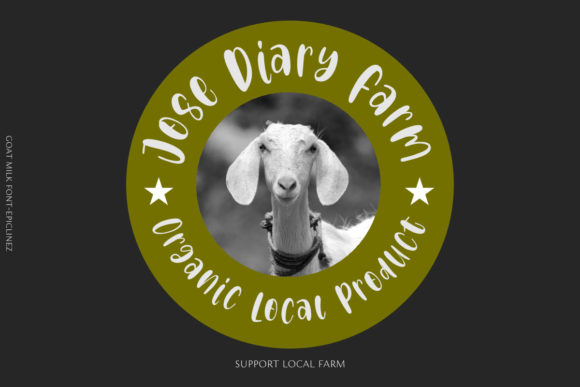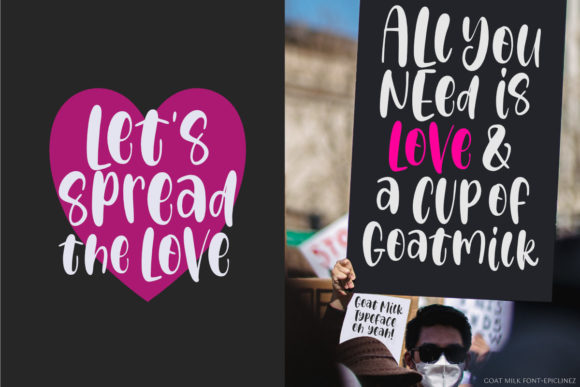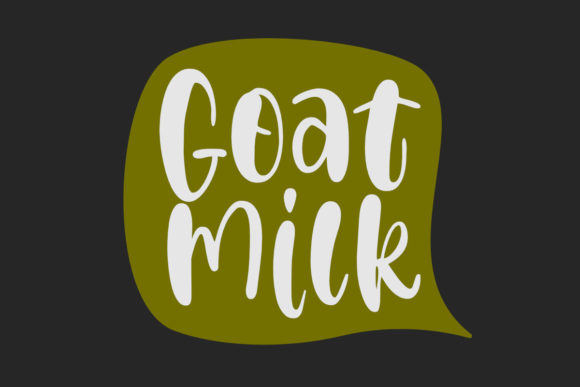
Introducing Goat Milk Font: The Whimsical and Chic Display Font
Are you tired of using the same old fonts for your creative projects? Look no further than the Goat Milk Font, a whimsical and chic display font that’s sure to bring a touch of elegance and playfulness to your designs. Masterfully designed to become a true favorite, this font has the potential to bring each of your creative ideas to the highest level!
What Makes Goat Milk Font So Special?
The Goat Milk Font is a unique and eye-catching font that’s perfect for designers and crafters looking to add a touch of personality to their work. With its elegant and cursive design, this font is sure to make your projects stand out from the crowd. Whether you’re creating a logo, a poster, or a social media graphic, the Goat Milk Font is the perfect choice.
Key Features of Goat Milk Font
• Whimsical and Chic Design: The Goat Milk Font features a whimsical and chic design that’s perfect for adding a touch of elegance and playfulness to your projects.
• Display Font: This font is specifically designed as a display font, making it perfect for headlines, titles, and other large text elements.
• Highly Versatile: The Goat Milk Font is highly versatile and can be used for a wide range of projects, from logos and posters to social media graphics and more.
• Elegant and Cursive Design: The font features an elegant and cursive design that’s sure to add a touch of sophistication to your projects.
Why Choose Goat Milk Font?
So why choose the Goat Milk Font for your next project? Here are just a few reasons why this font is a great choice:
• Unique and Eye-Catching: The Goat Milk Font is a unique and eye-catching font that’s sure to make your projects stand out from the crowd.
• Easy to Read: Despite its elegant and cursive design, the Goat Milk Font is easy to read, making it perfect for use in a wide range of projects.
• High-Quality Design: The font is masterfully designed to ensure that it looks great in any size or format.
How to Use Goat Milk Font
The Goat Milk Font is easy to use and can be incorporated into a wide range of projects. Here are a few ideas for using this font:
• Logos and Branding: Use the Goat Milk Font to create a unique and eye-catching logo for your business or brand.
• Posters and Flyers: Add a touch of elegance and playfulness to your posters and flyers with the Goat Milk Font.
• Social Media Graphics: Use the font to create eye-catching social media graphics that are sure to grab the attention of your followers.
Tips for Getting the Most Out of Goat Milk Font
Here are a few tips for getting the most out of the Goat Milk Font:
• Experiment with Different Sizes and Colors: Don’t be afraid to experiment with different sizes and colors to find the perfect look for your project.
• Pair with Other Fonts: The Goat Milk Font pairs well with a wide range of other fonts, so don’t be afraid to get creative and try out different combinations.
• Use for Headlines and Titles: The font is specifically designed as a display font, so use it for headlines and titles to add a touch of elegance and playfulness to your projects.
In conclusion, the Goat Milk Font is a whimsical and chic display font that’s perfect for designers and crafters looking to add a touch of personality to their work. With its elegant and cursive design, this font is sure to make your projects stand out from the crowd. Whether you’re creating a logo, a poster, or a social media graphic, the Goat Milk Font is the perfect choice. So why wait? Download the Goat Milk Font today and start bringing your creative ideas to life!